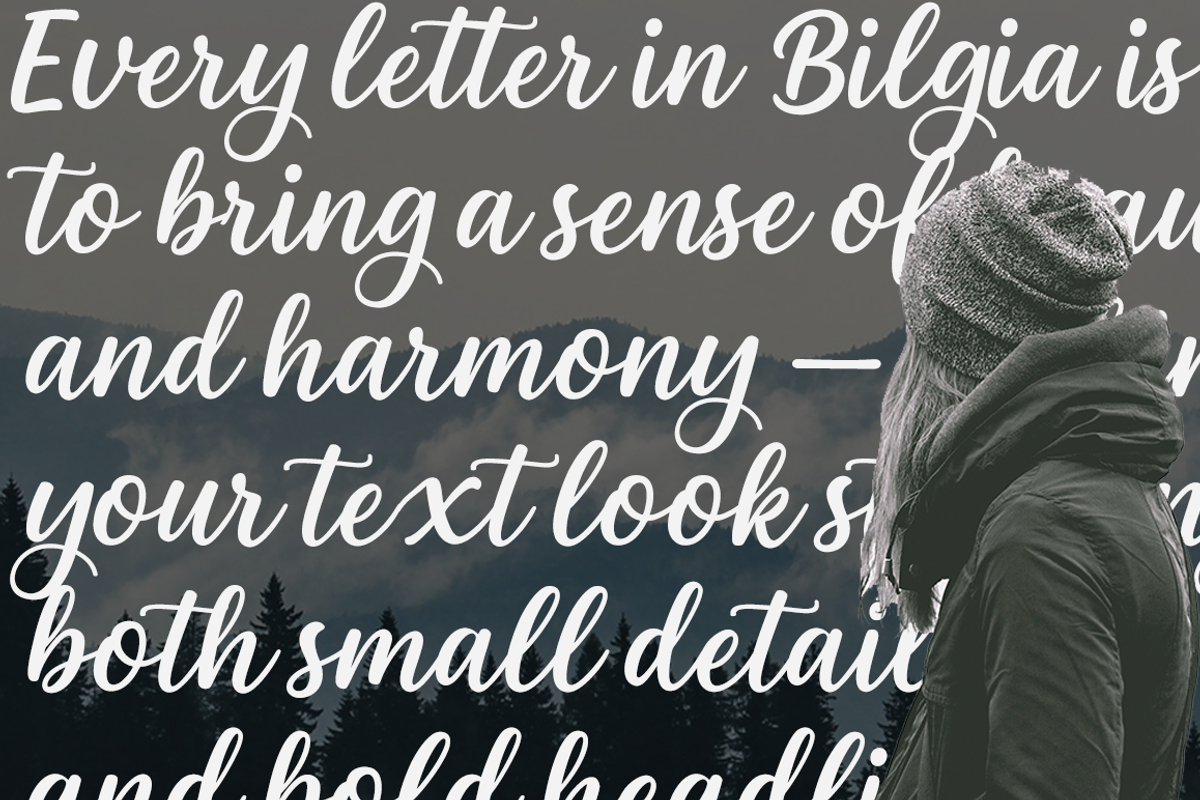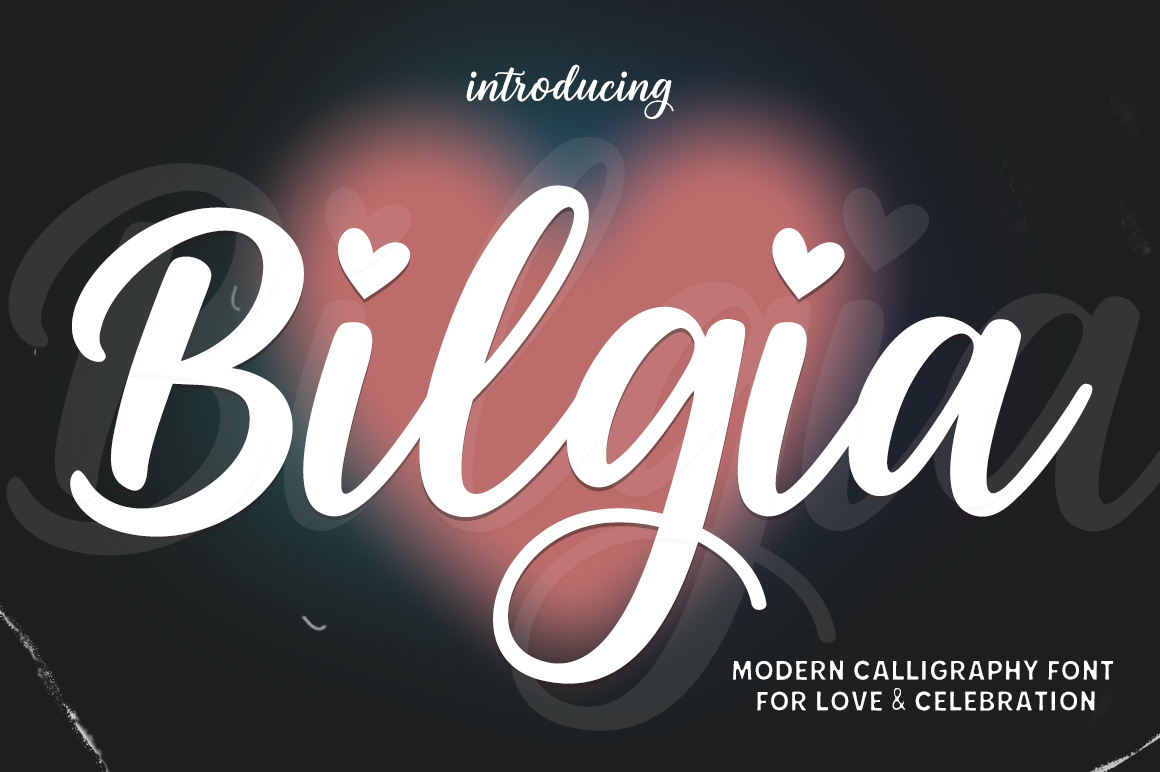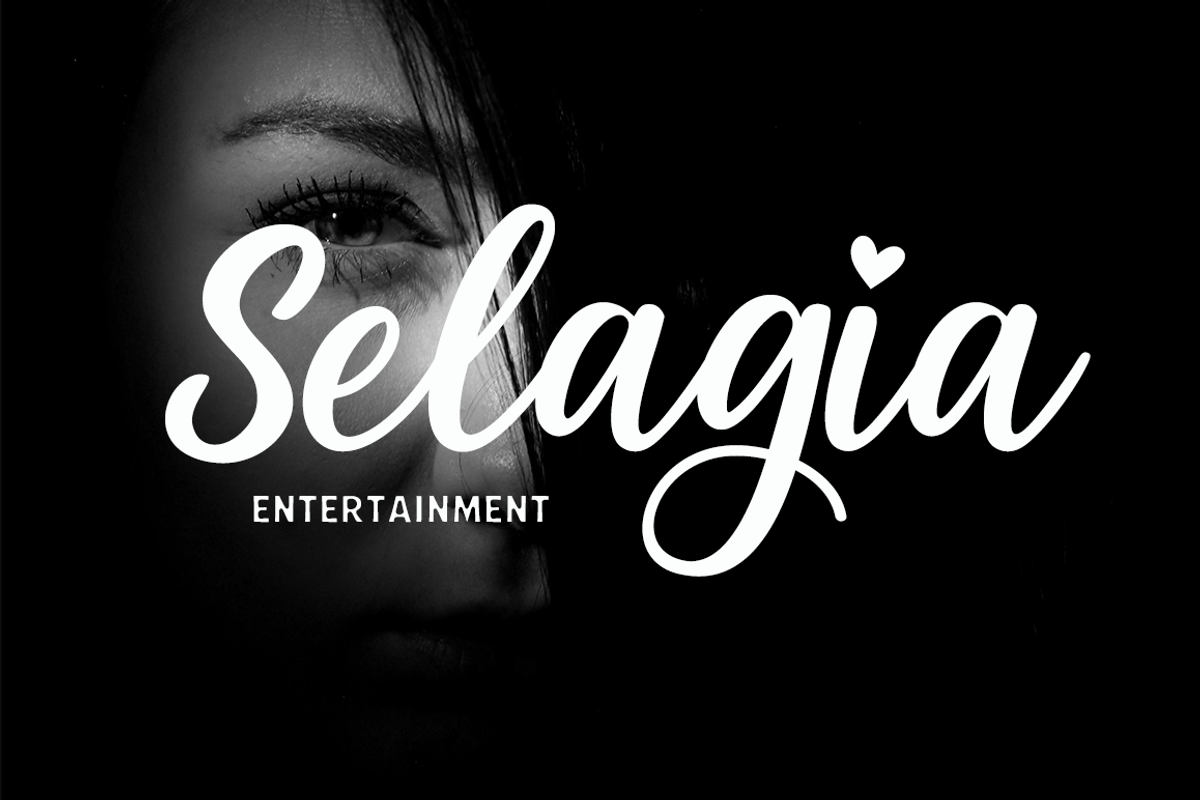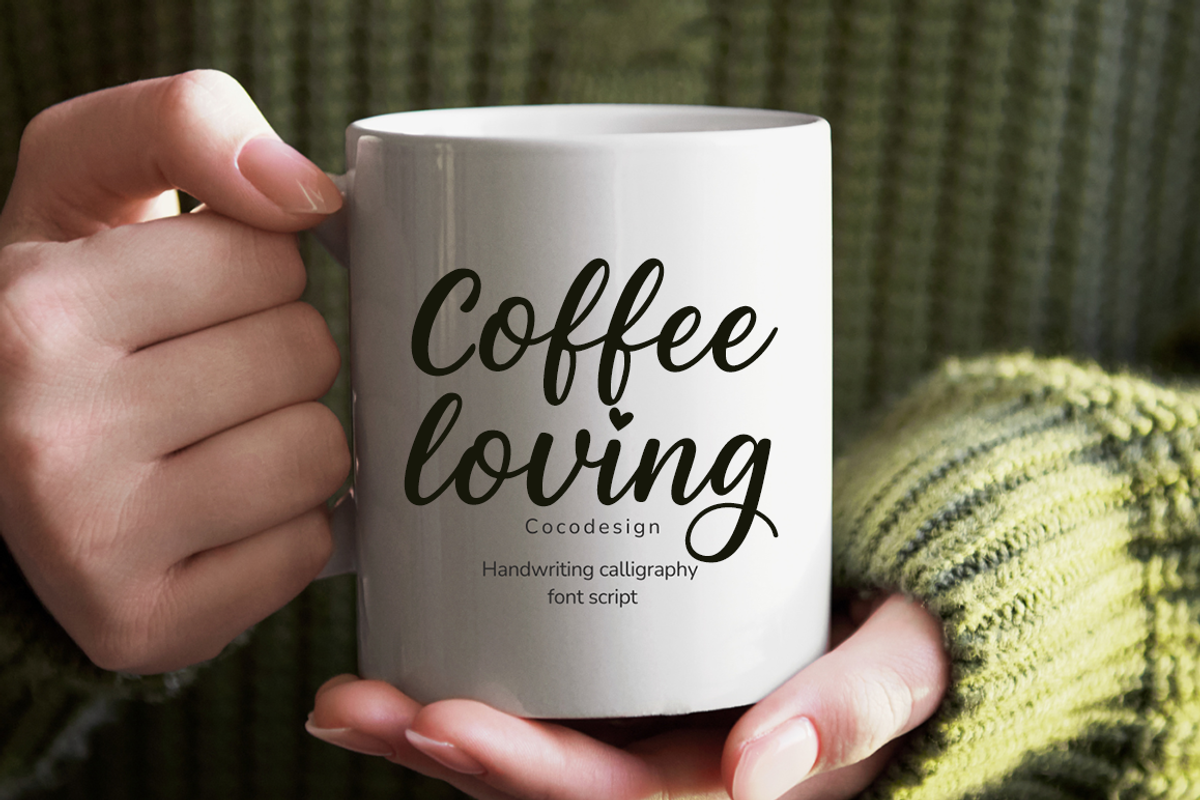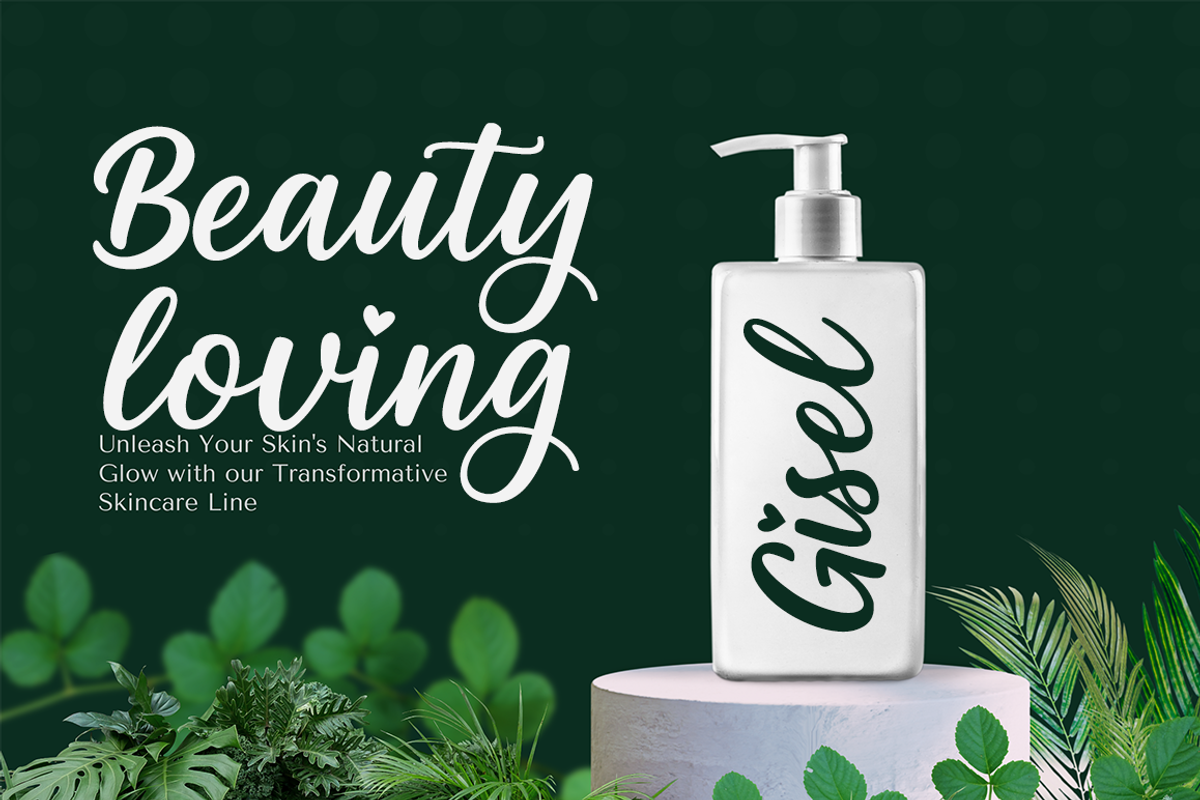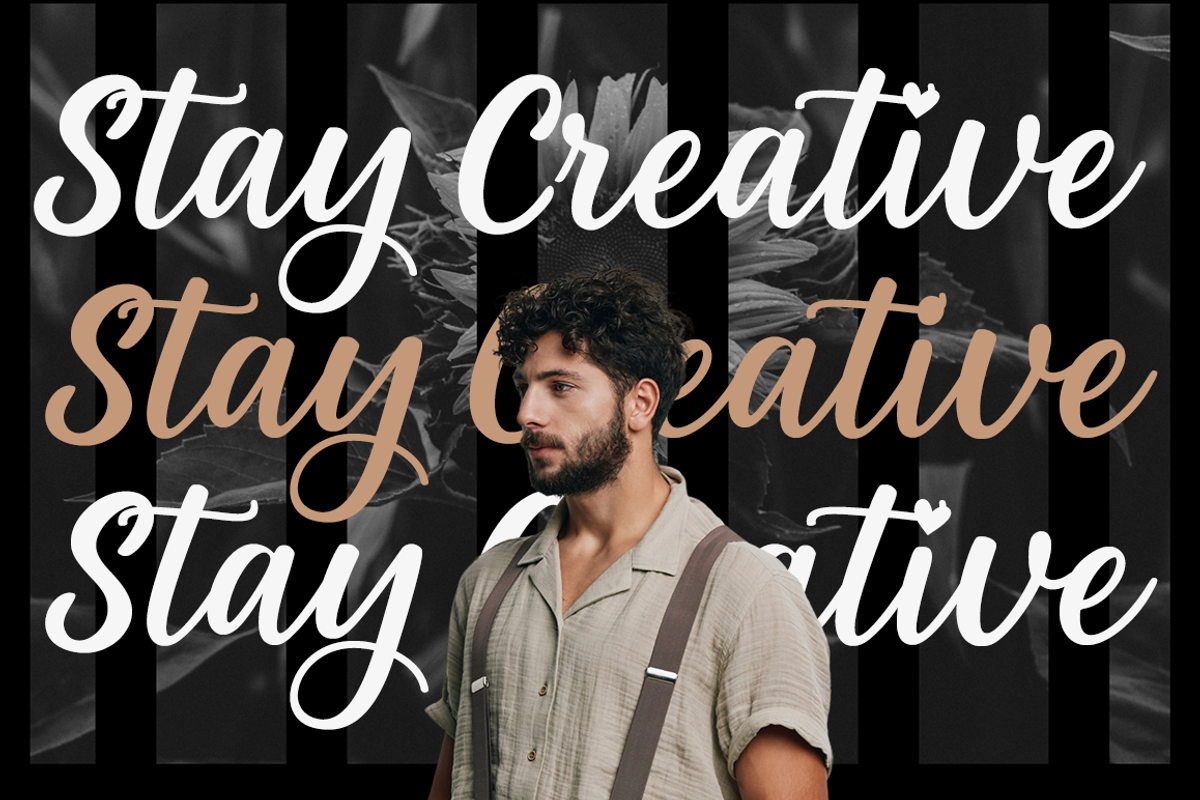
Bilgia Modern Calligraphy Font
Bilgia – Modern Calligraphy Font for Love & Celebration Bilgia is a modern calligraphy font designed with elegance, warmth, and a touch of romance.
Every stroke flows smoothly, creating a beautiful handwritten rhythm that brings charm and sophistication to your design. The subtle heart details add a playful yet graceful feel — perfect for projects that need a touch of love and celebration.
Whether you’re creating wedding invitations, branding projects, greeting cards, or stylish social media quotes, Bilgia will make your typography stand out with its soft curves and expressive forms.